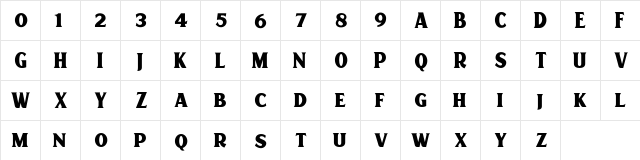
Scarlett Display DEMO
| Foundry | Swistblnk |
| Designer | Agga Swistblnk |
Design Context for Scarlett Typeface
Scarlett brings ornamental detail and strong personality to headlines and identities, where visual impact matters more than quiet functionality.
Font Pairing: Pair with a clean neutral sans-serif for body copy to let Scarlett's character lead without overwhelming the composition.
Pro Tip: Treat Scarlett as the centrepiece of your typographic hierarchy. One strong heading set in a decorative face can carry an entire layout.